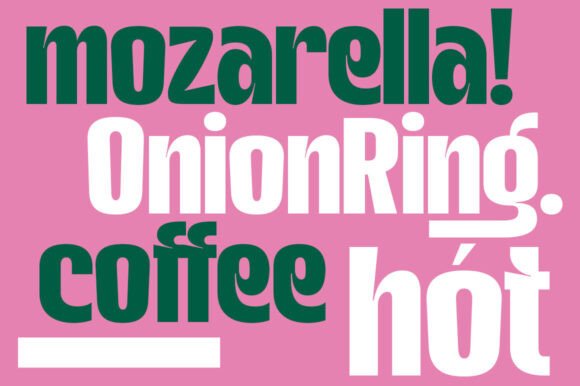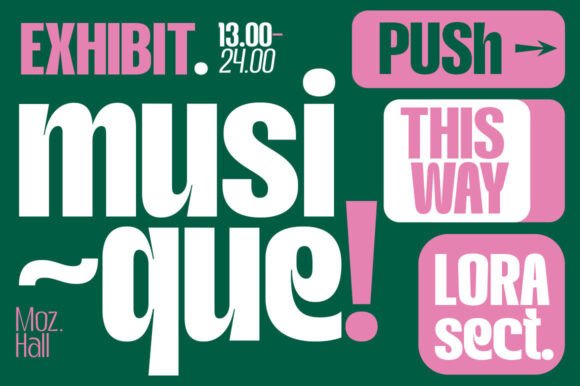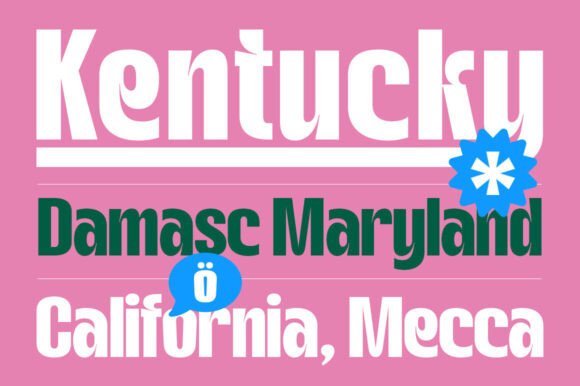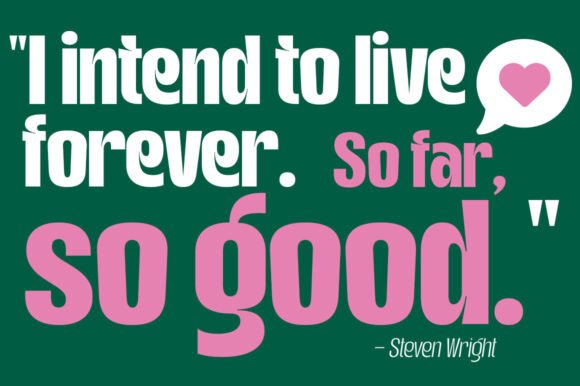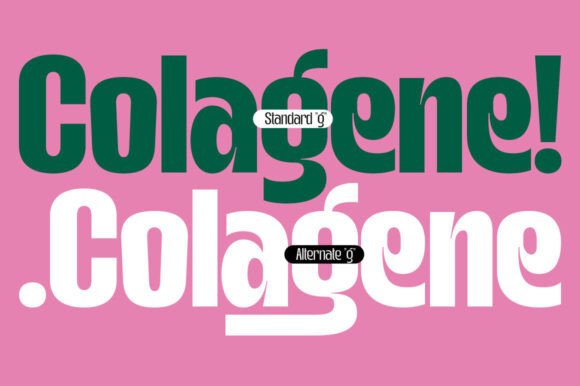
Introducing Gotkin Extra Bold Font: The Epitome of Modern Strength and Sophistication
In the realm of typography, few fonts manage to strike a balance between modern strength and sophistication. Gotkin, a sans serif font family, achieves this delicate balance with remarkable finesse. Designed to convey a sense of dynamism and boldness, Gotkin has emerged as a versatile solution for professionals seeking clarity and style in their designs.
The Design Philosophy of Gotkin
Gotkin’s design is rooted in the principles of soft curves and bold geometric shapes. This unique blend adds a touch of warmth to the font, making it ideal for corporate branding, digital interfaces, and editorial designs. The font’s geometric foundation ensures a sense of stability and reliability, while the soft curves introduce an element of approachability and friendliness.
A Comprehensive Font Family
One of the standout features of Gotkin is its extensive range of weights, spanning from light to black. This versatility allows designers to experiment with various typography styles, ensuring that their designs are always visually appealing and well-balanced. Additionally, the font includes beautiful italics, excellent weights, alternates, ligatures, and extensive language support, making it a comprehensive solution for a wide range of design needs.
Clean Lines and Readability
Gotkin’s clean lines are a hallmark of its design, ensuring exceptional readability in all formats, from headlines to body text. This makes it an excellent choice for designers seeking to create clear and concise communications. Whether you’re working on a branding project, editorial design, or digital interface, Gotkin’s clean lines and geometric shapes ensure that your message is conveyed with clarity and style.
Variable Font Version
To make it easy for designers to explore and refine beautiful designs, Gotkin is also available in a Variable font version. This innovative feature allows designers to adjust the font’s weight, width, and other attributes in real-time, providing unparalleled flexibility and creative freedom.
Ideal for Display Settings
Gotkin excels in display settings, making it an excellent choice for headlines, titles, branding projects, logo designs, packaging, magazine titles, advertisements, and short or long texts. Its bold and geometric design ensures that it grabs attention, while its soft curves add a touch of sophistication and elegance.
Applications of Gotkin
Gotkin’s versatility makes it suitable for a wide range of applications, including:
- Corporate branding: Gotkin’s modern strength and sophistication make it an excellent choice for corporate branding projects.
- Digital interfaces: The font’s clean lines and geometric shapes ensure exceptional readability on digital platforms.
- Editorial designs: Gotkin’s extensive range of weights and beautiful italics make it ideal for editorial designs, such as magazine titles and articles.
- Logo designs: The font’s bold and geometric design makes it an excellent choice for logo designs.
- Packaging: Gotkin’s clean lines and modern aesthetic make it suitable for packaging designs.
Gotkin Extra Bold Font is a powerful and sophisticated sans serif font family that offers a unique blend of modern strength and elegance. Its extensive range of weights, beautiful italics, and clean lines make it an excellent choice for designers seeking clarity and style in their designs. Whether you’re working on a corporate branding project, editorial design, or digital interface, Gotkin is an excellent solution that is sure to elevate your designs to the next level.
With its Variable font version, Gotkin provides designers with unparalleled flexibility and creative freedom. Its exceptional readability, extensive language support, and beautiful design make it an essential tool for any designer seeking to create stunning visual communications.
In conclusion, Gotkin Extra Bold Font is a versatile and sophisticated font family that is sure to meet the needs of designers and crafters. Its unique blend of modern strength and elegance makes it an excellent choice for a wide range of design applications.